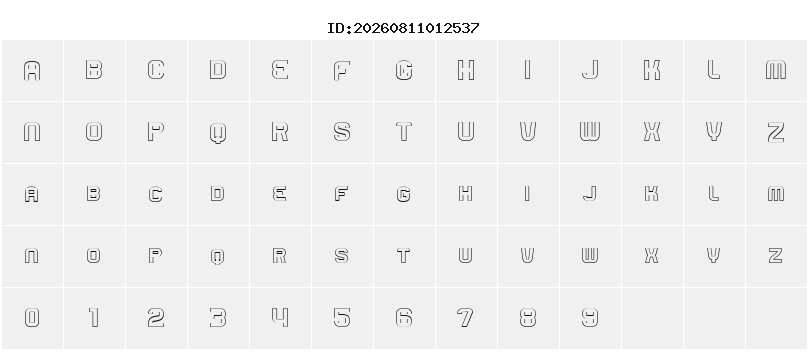
• Font Name: Rueck Licht
• Designer: Peter Wiegel
About Rueck Licht.ttf
Rueck Licht.ttf is a modern, elegant sans-serif font designed for ultimate readability and visual harmony. Perfect for branding, headlines, web design, and print materials.